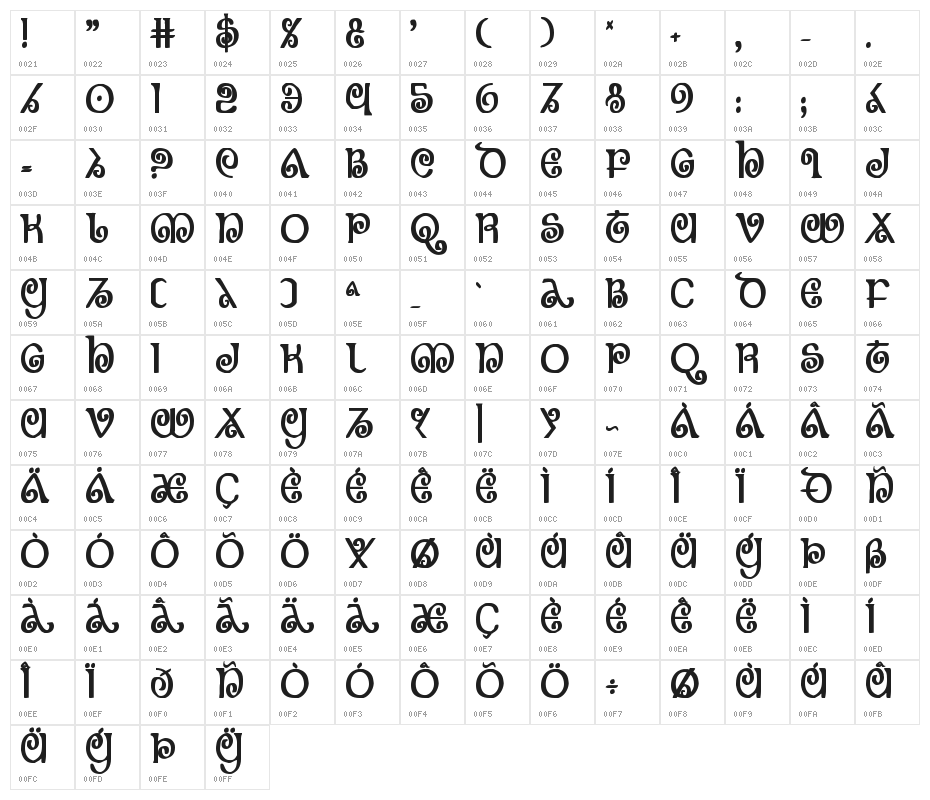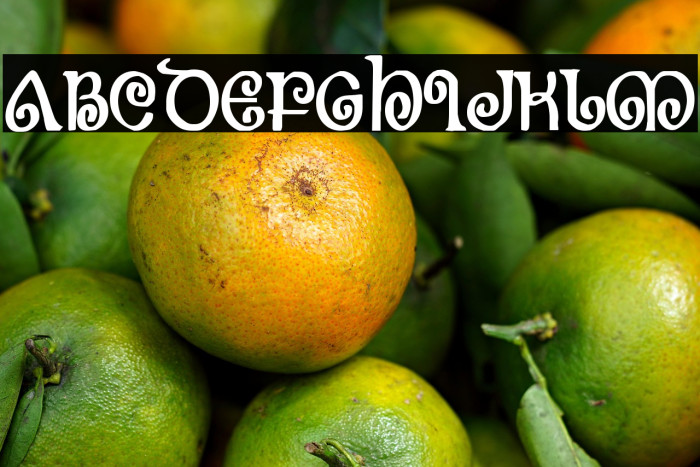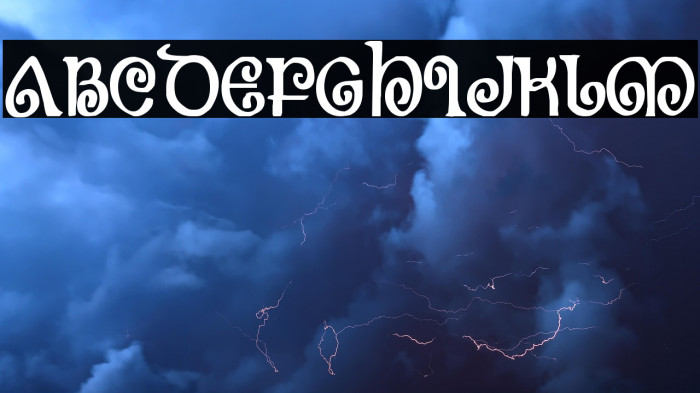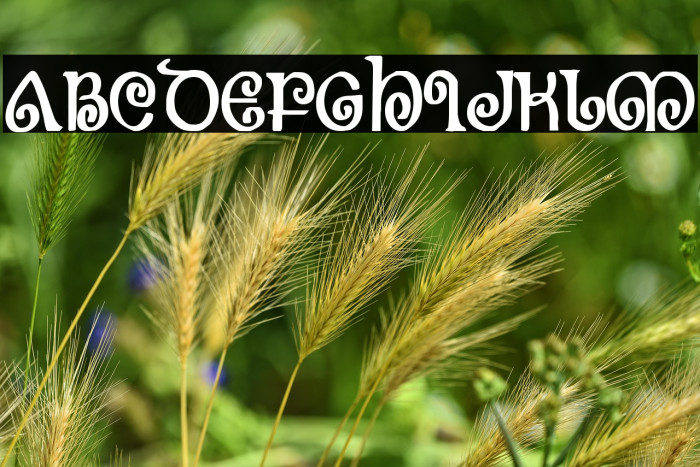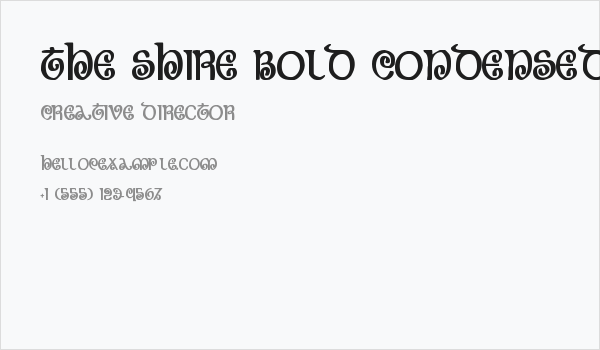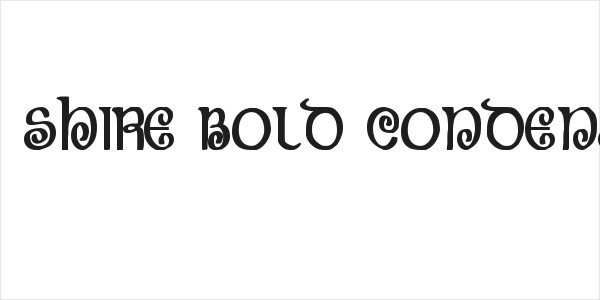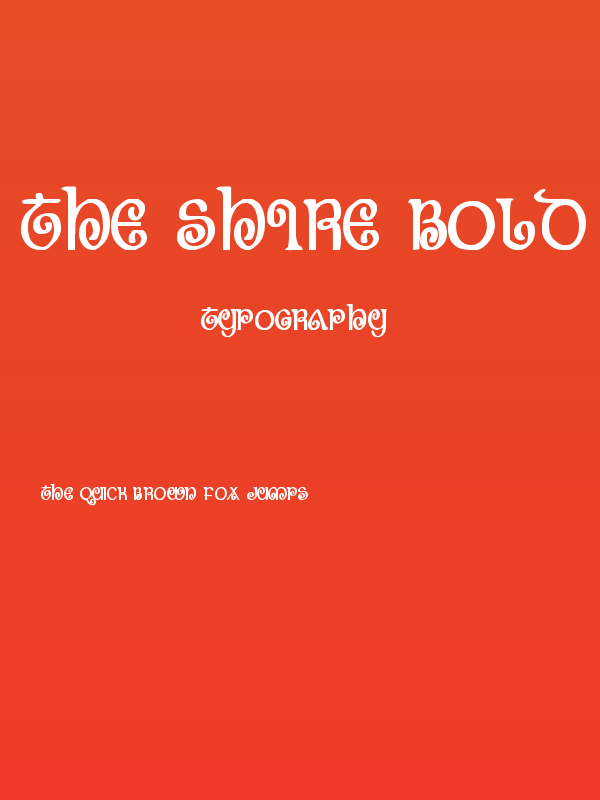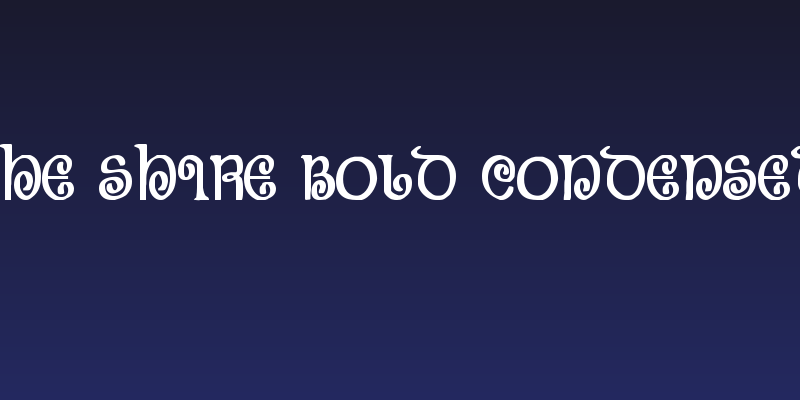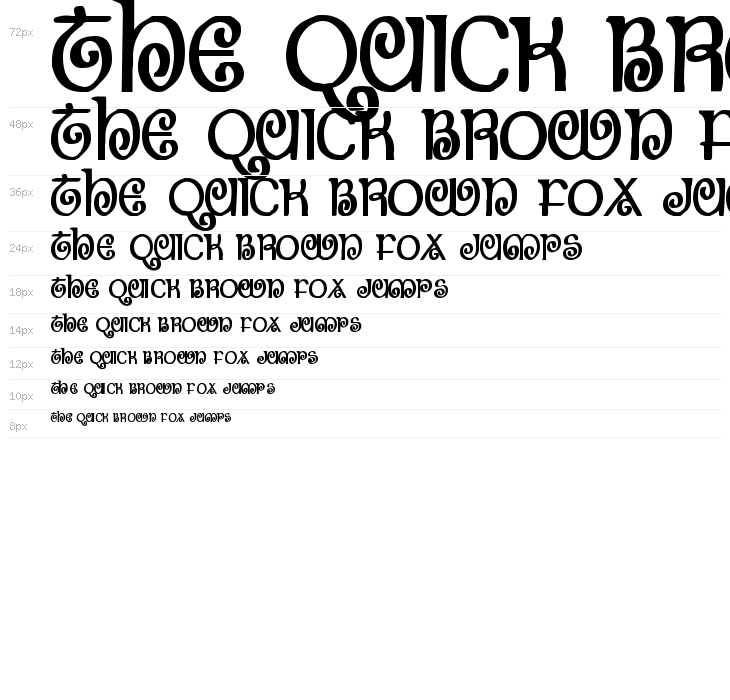
The Shire Bold Condensed Font
The Shire Bold Condensed Description
This font features a whimsical and decorative style, characterized by its bold and condensed letterforms. Each character is adorned with unique, playful curls and swirls, giving it a distinct and eye-catching appearance. The uppercase and lowercase letters maintain a consistent design, with the lowercase mirroring the uppercase in style. The numbers and special characters continue this theme, incorporating similar decorative elements. The overall look is reminiscent of a fantasy or storybook aesthetic, making it ideal for projects that require a touch of magic and creativity.